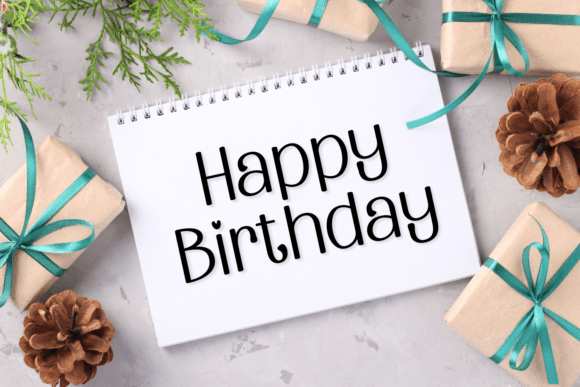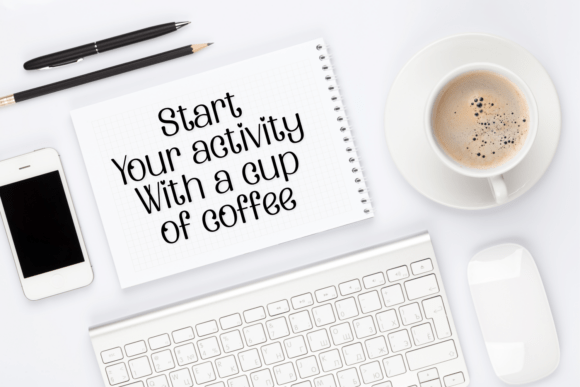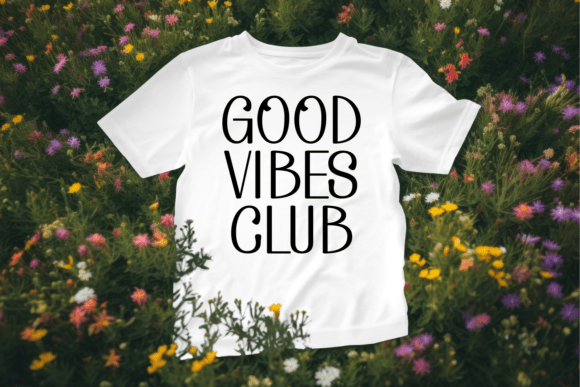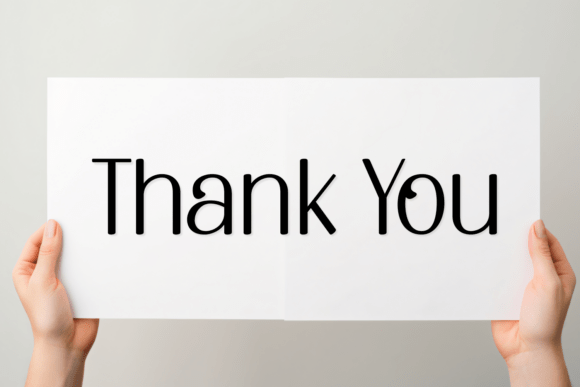
Smart Memory Font
Introducing Smart Memory – a timeless blend of unrivalled Sans Serif and Feminine styles effortlessly crafted into one stunning font. This expression of chic simplicity meets versatile functionality makes for both captivating Beauty and Simple fonts, perfect to grace occasions from fashion shows to newspaper headlines. Whether you’re decorating your wallpaper with Hand Drawn characters or crafting your personalized headlines, Smart Memory will ensure your work stands out.
As a beloved choice among the most Popular Fonts, Smart Memory enriches social media content and photography portfolios alike while serving as a delightful font for sublimation and school projects. The seamless flow from Print to Cursive styles gives way to elegant Accent fonts that enhance any apparel collection. The authentic charm of Smart Memory makes it the perfect fit for book covers, reaffirming its place in the realm of Book and Branding fonts.
The neat lines of Smart Memory deck out cards and covers in the most aesthetically pleasing way while its clean design guarantees a winning logotype. This versatile package packs the polished finish of Magazine fonts, the engaging pull of Quote fonts, and the heartwarming touch of Greeting Card Fonts. Wrap your words in the smooth curves of Smart Memory; they’re perfect for rounding script on T-shirts and seasonal décor.
The lively Cartoon side of Smart Memory strikes a youthful note in the Trendy and Cute fonts, ensuring that every script you write is not just beautiful, but also resonates with your audience. With Smart Memory, embrace the power to dream, create, and inspire. Leave a dash of your style in every detail, be it in professional branding or personal crafts. The Smart Memory font is a treasure trove catering to all your design needs. Let those who read fall in love with your content and the beauty of the letters that help tell your story.